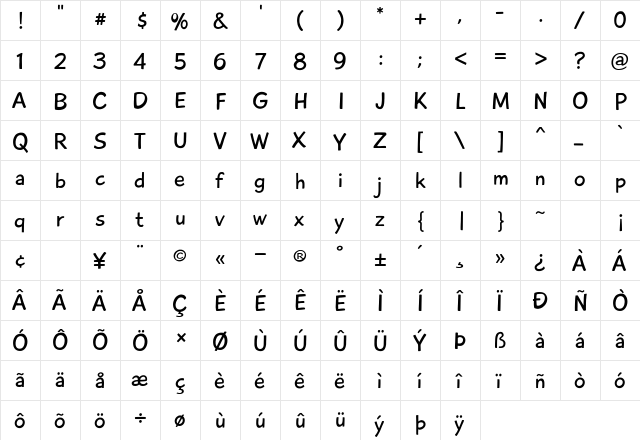
Playtime With Hot Toddies Regular
Design Context for Playtime With Hot Toddies Typeface
Playtime With Hot Toddies offers clean, dependable letterforms without strong stylistic allegiance, making it a practical choice for designers who need flexibility.